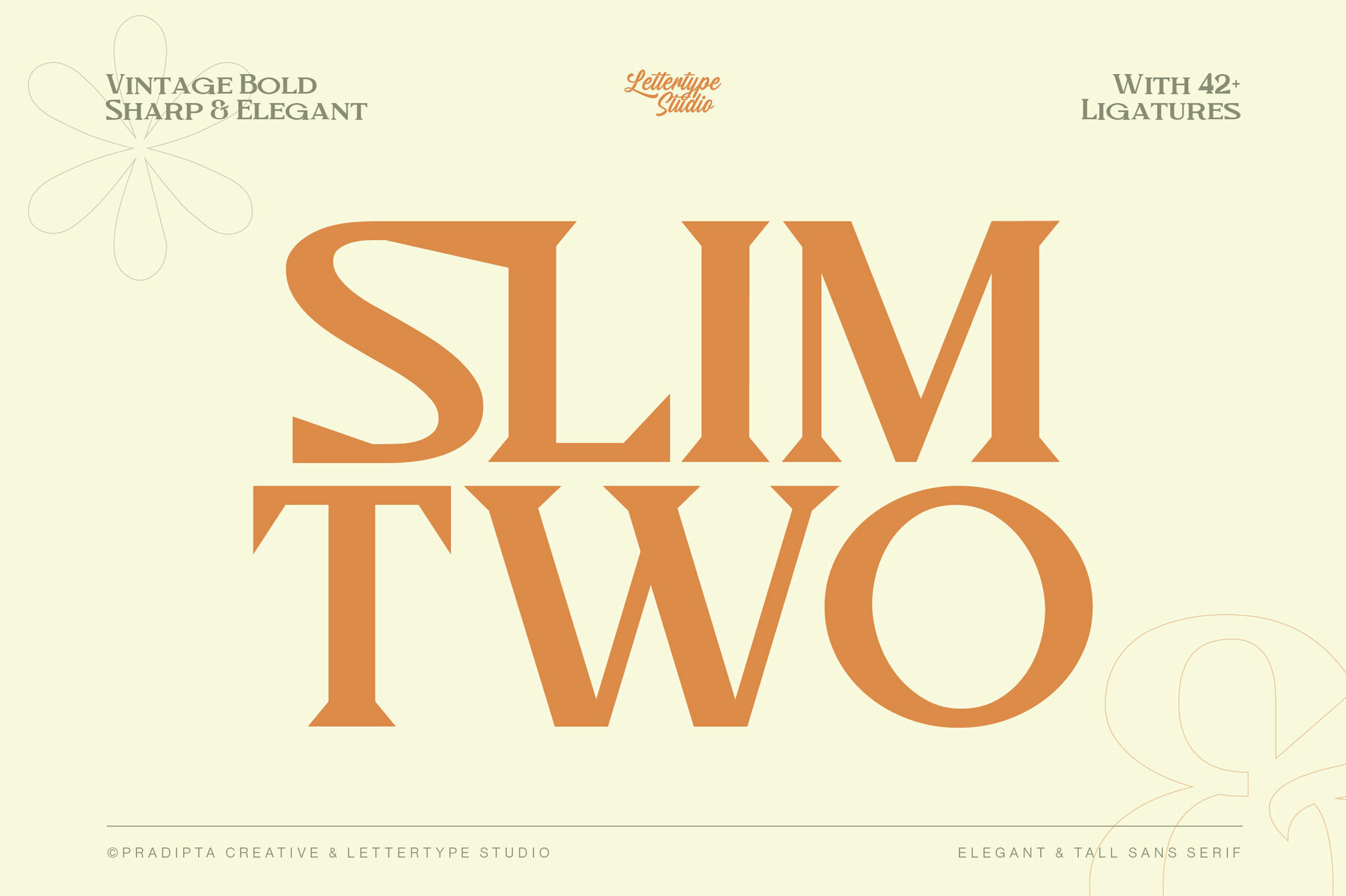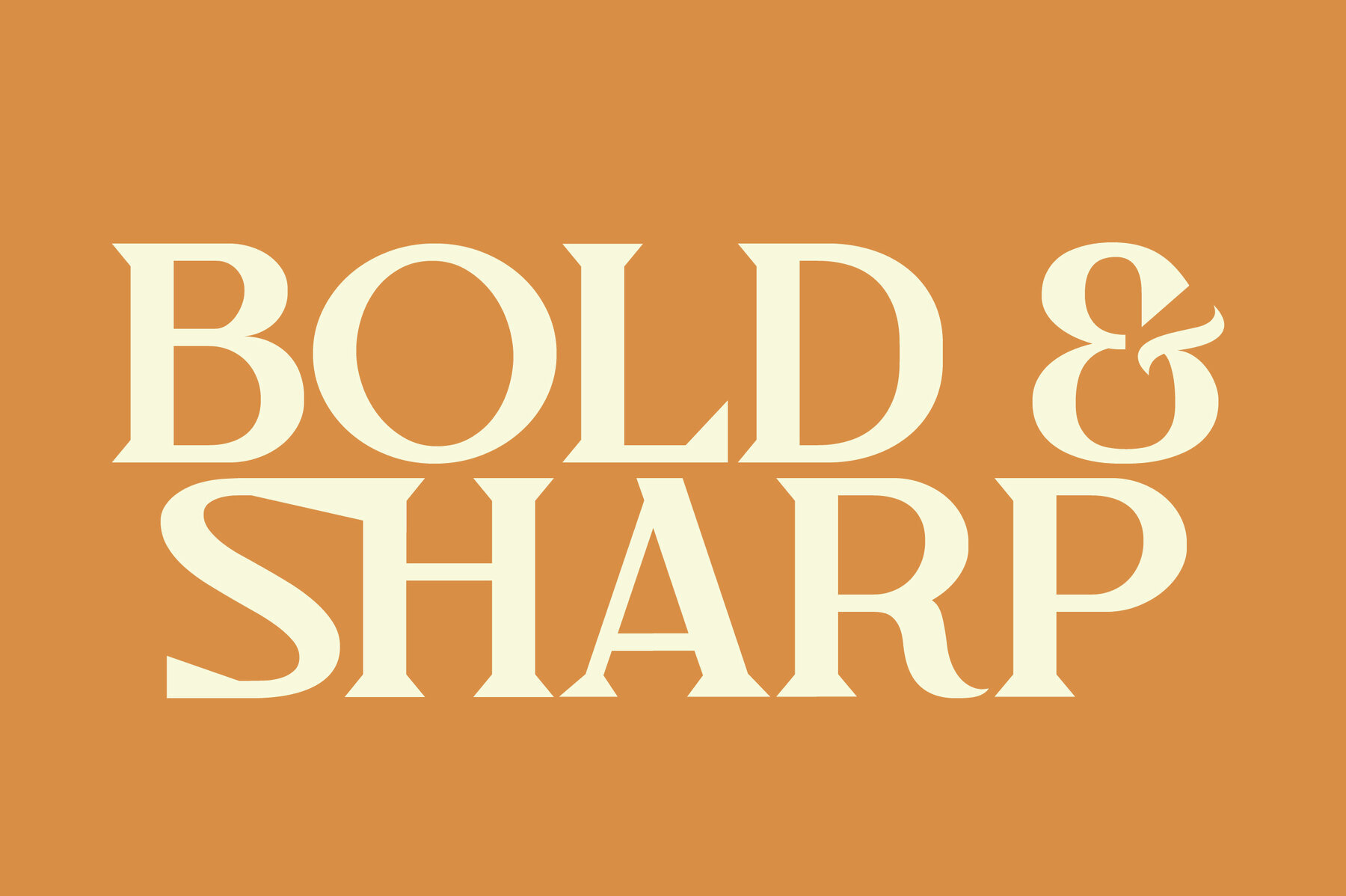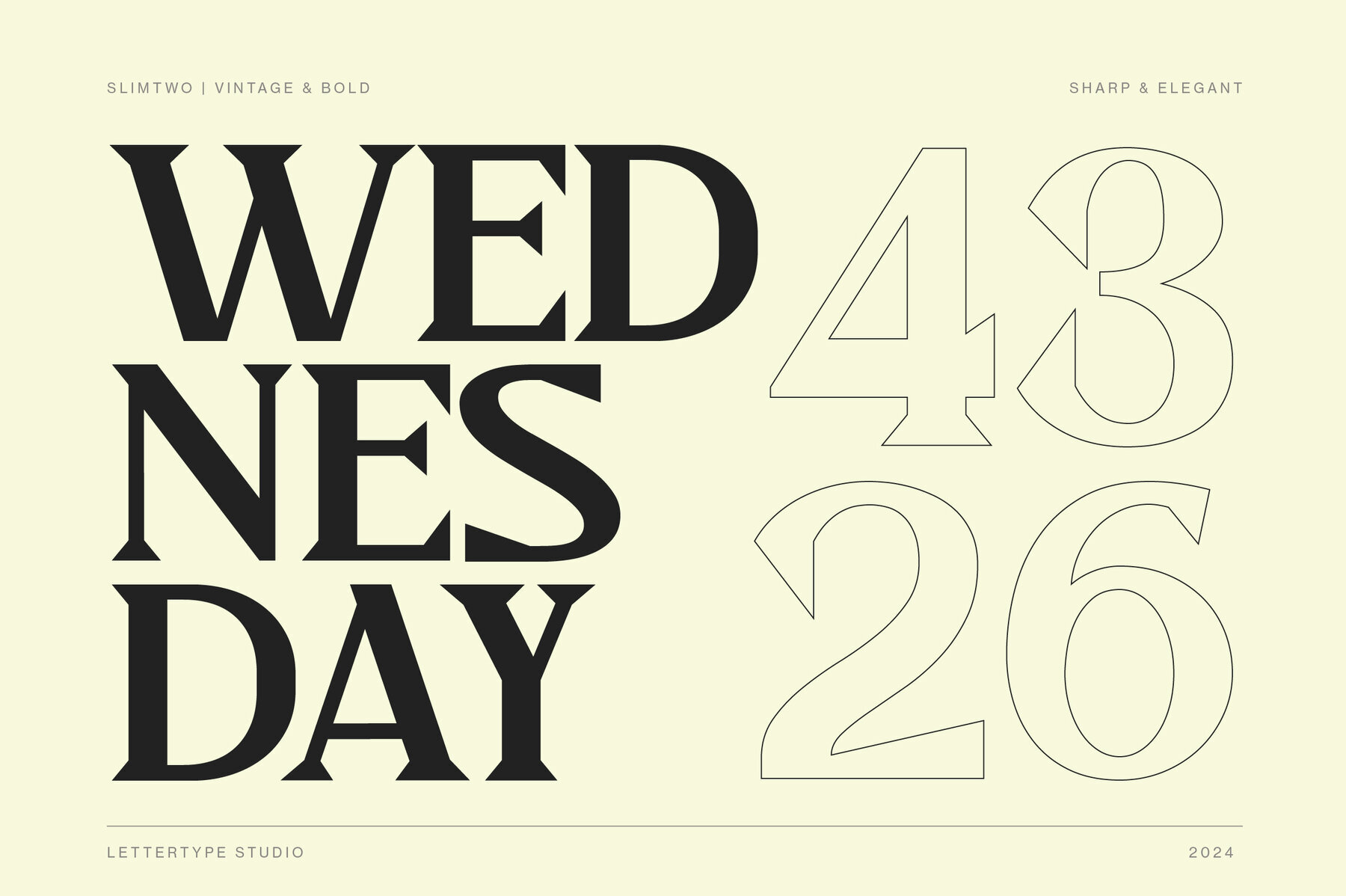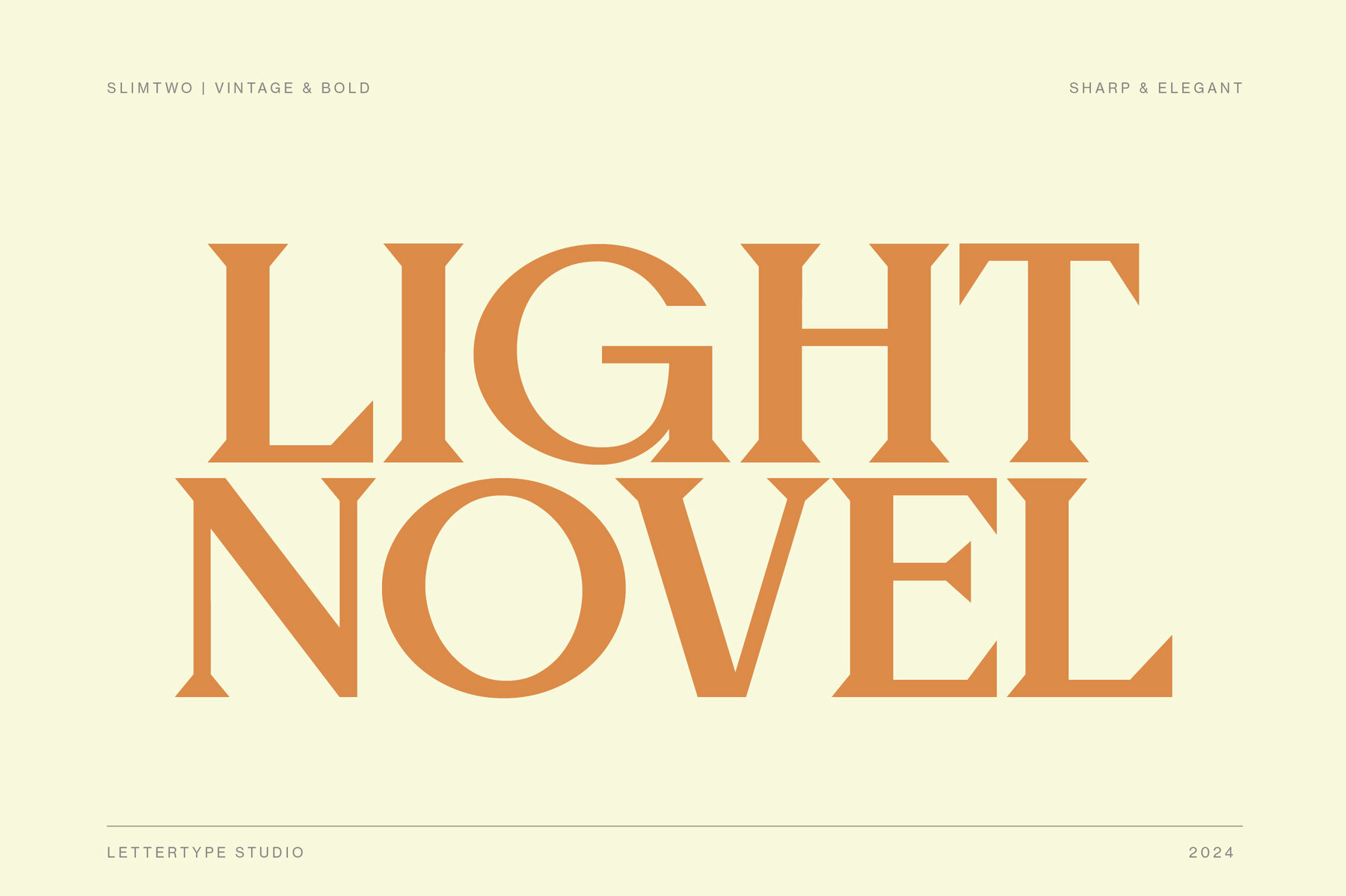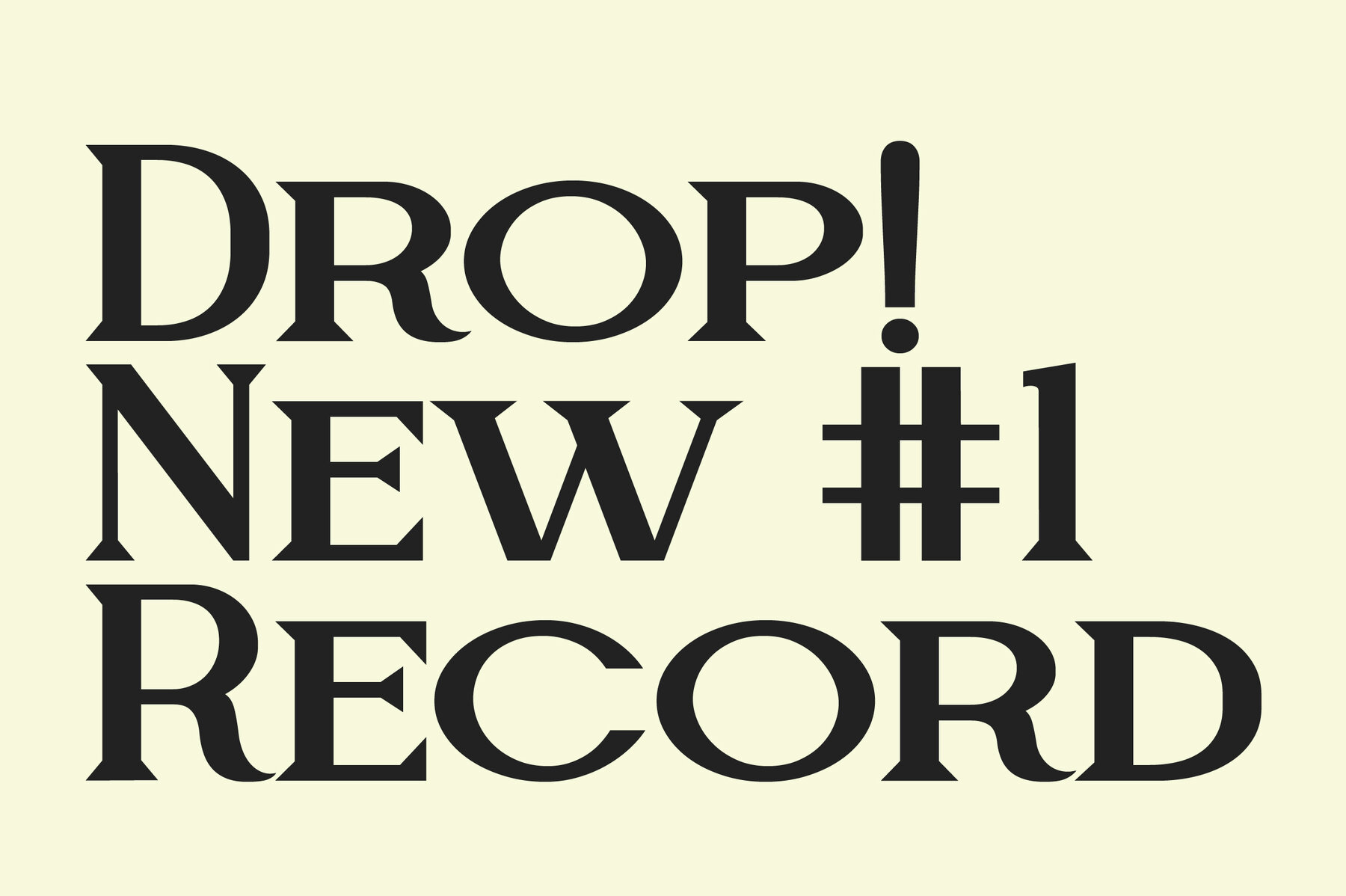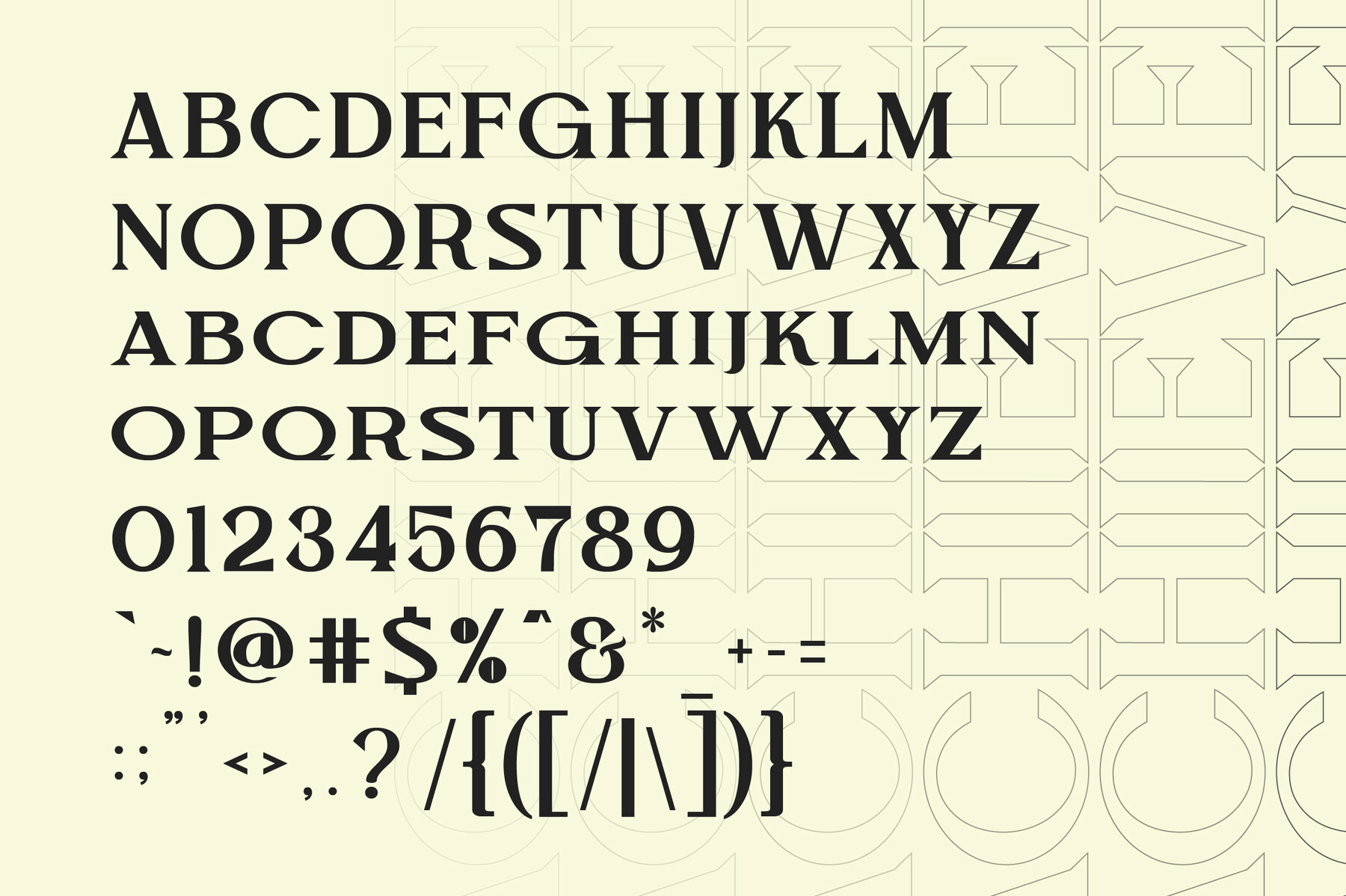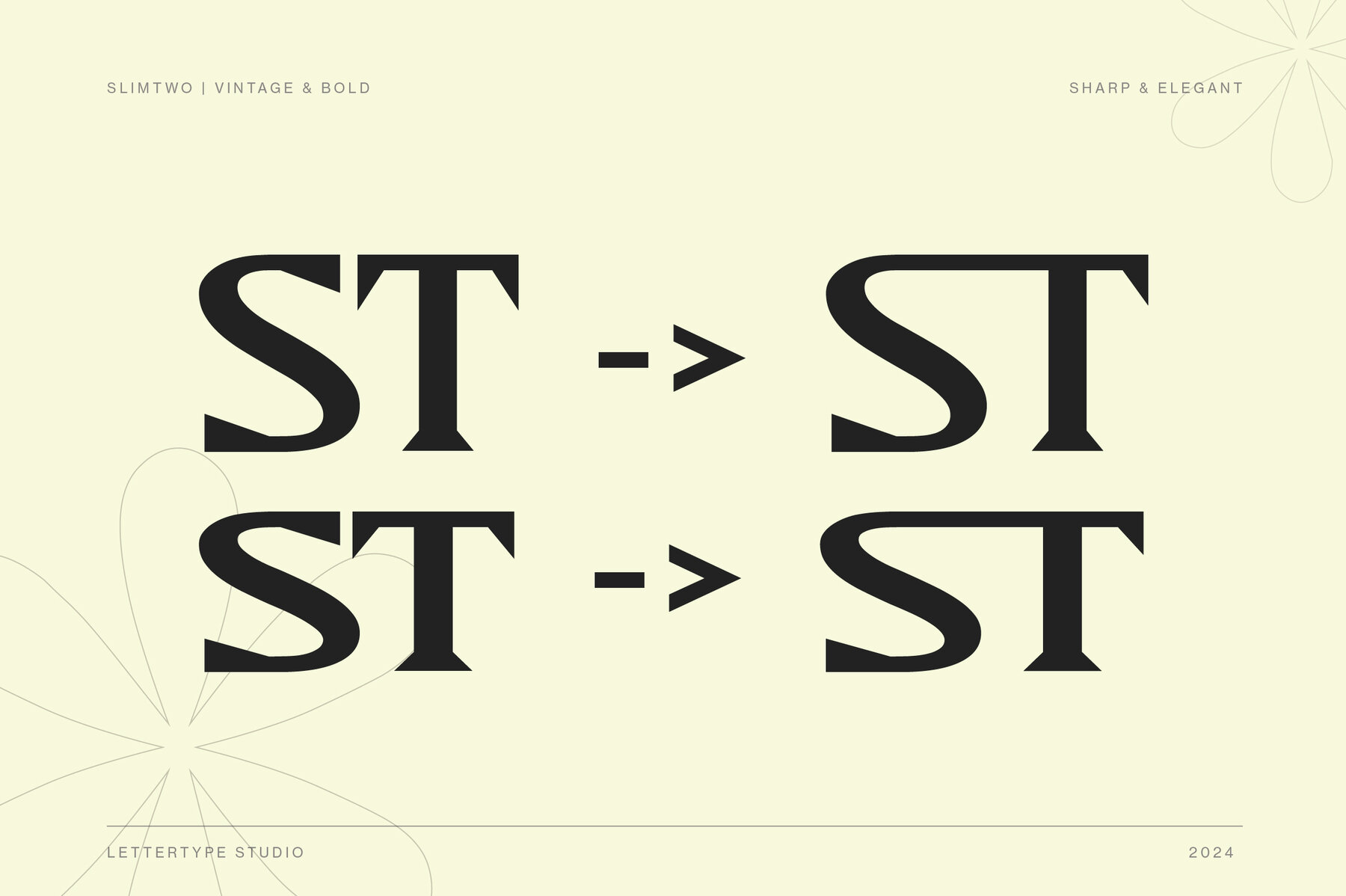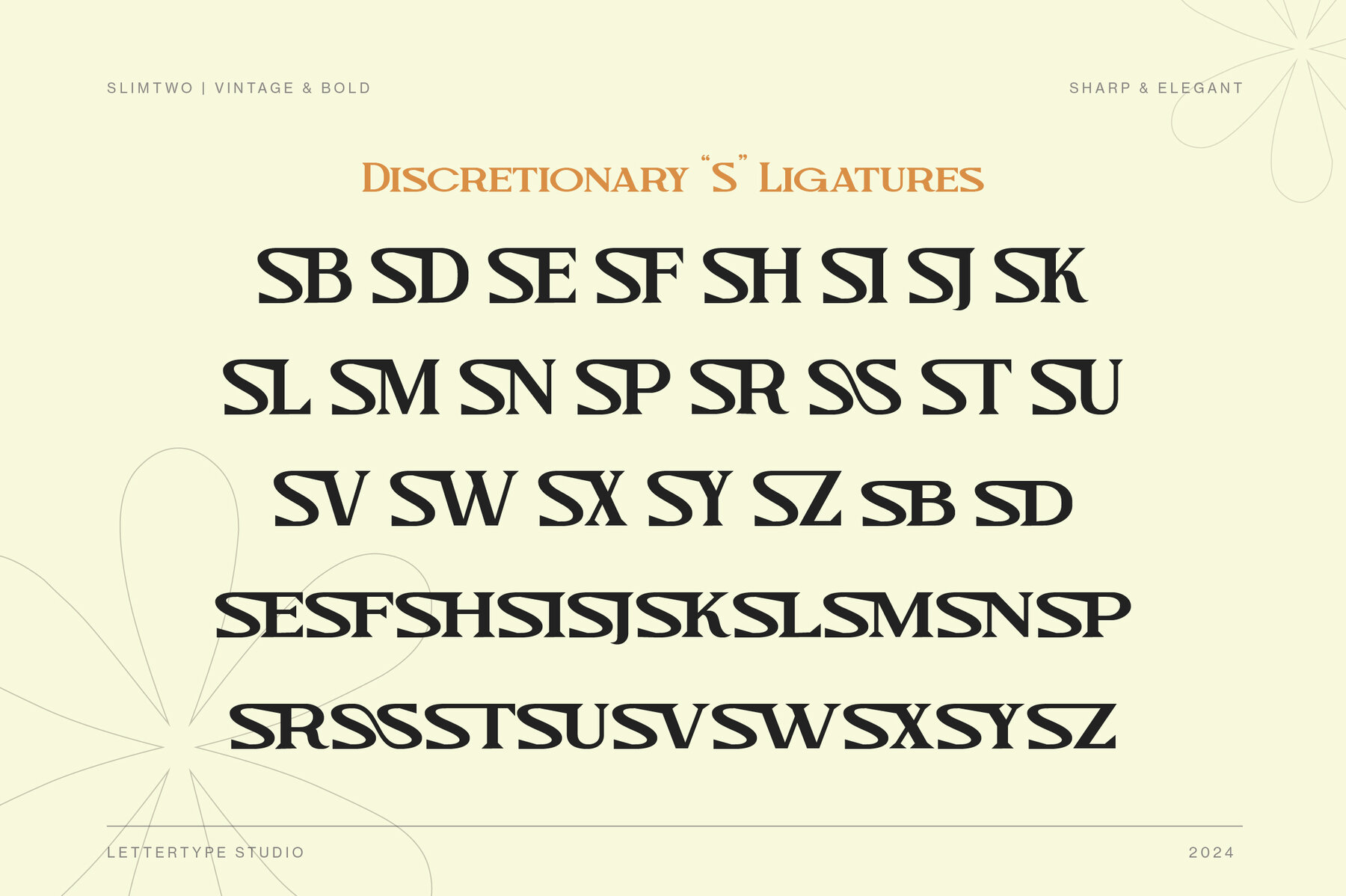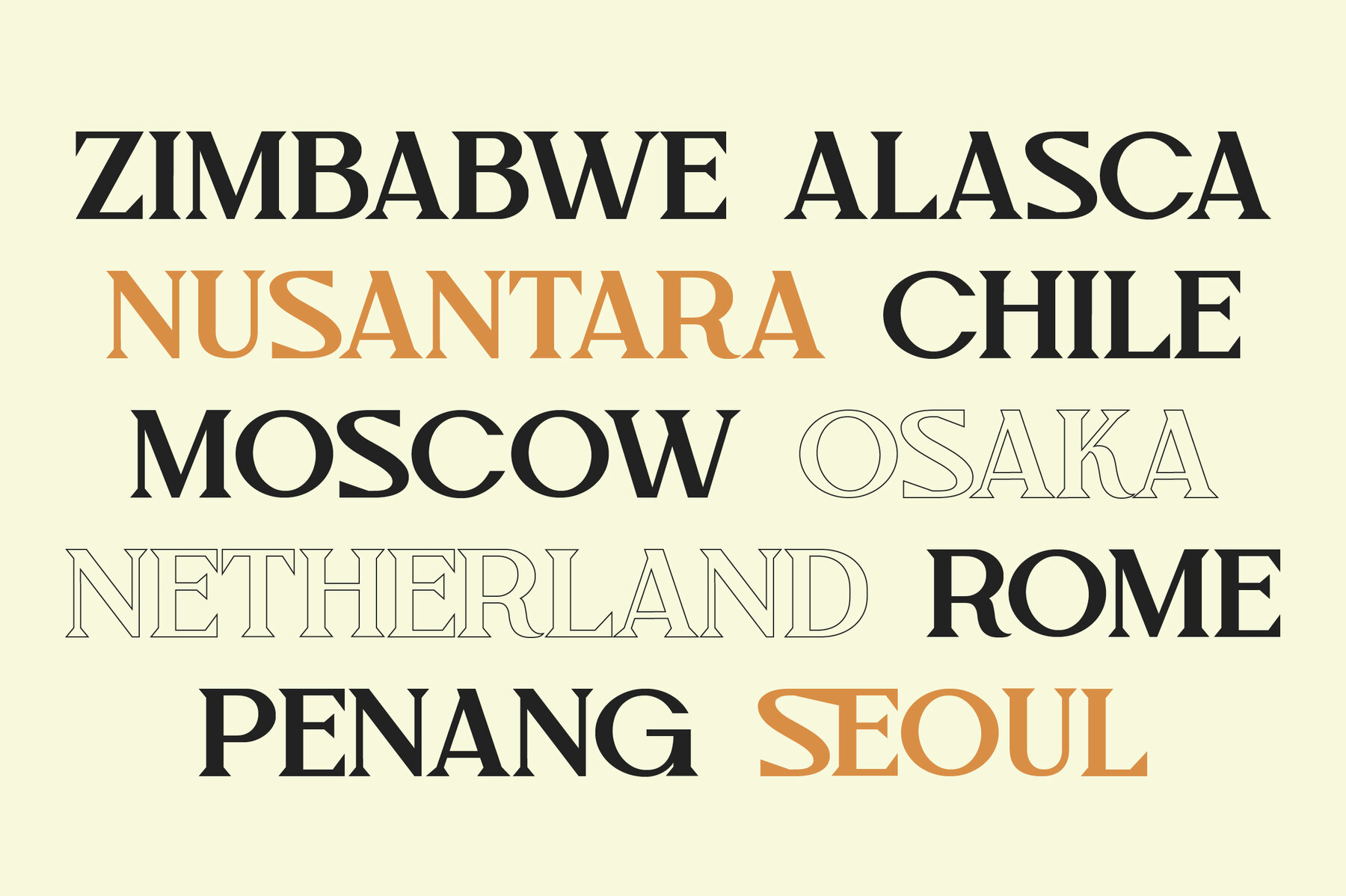
Slimtwo Font
Slimtwo Regular
Discover the refined charm of Slimtwo, a vintage bold serif font designed for those who appreciate timeless elegance. Drawing inspiration from classic typography, Slimtwo captivates with its sharp, clean lines and graceful curves. Whether you're designing for digital or print, this serif font infuses a unique blend of modern and vintage appeal into your projects.Slimtwo Serif Font: Vintage Elegance
Features of Slimtwo